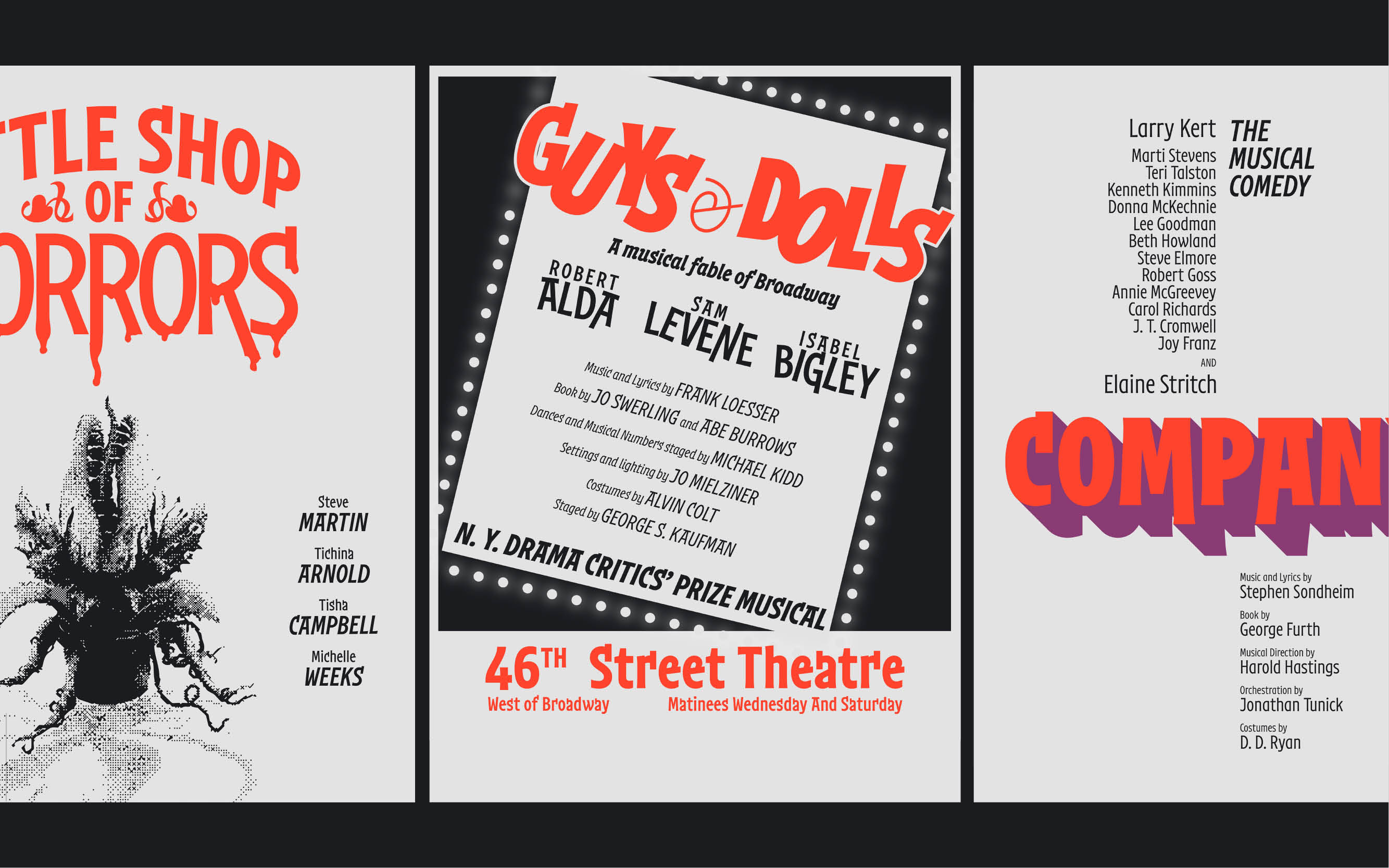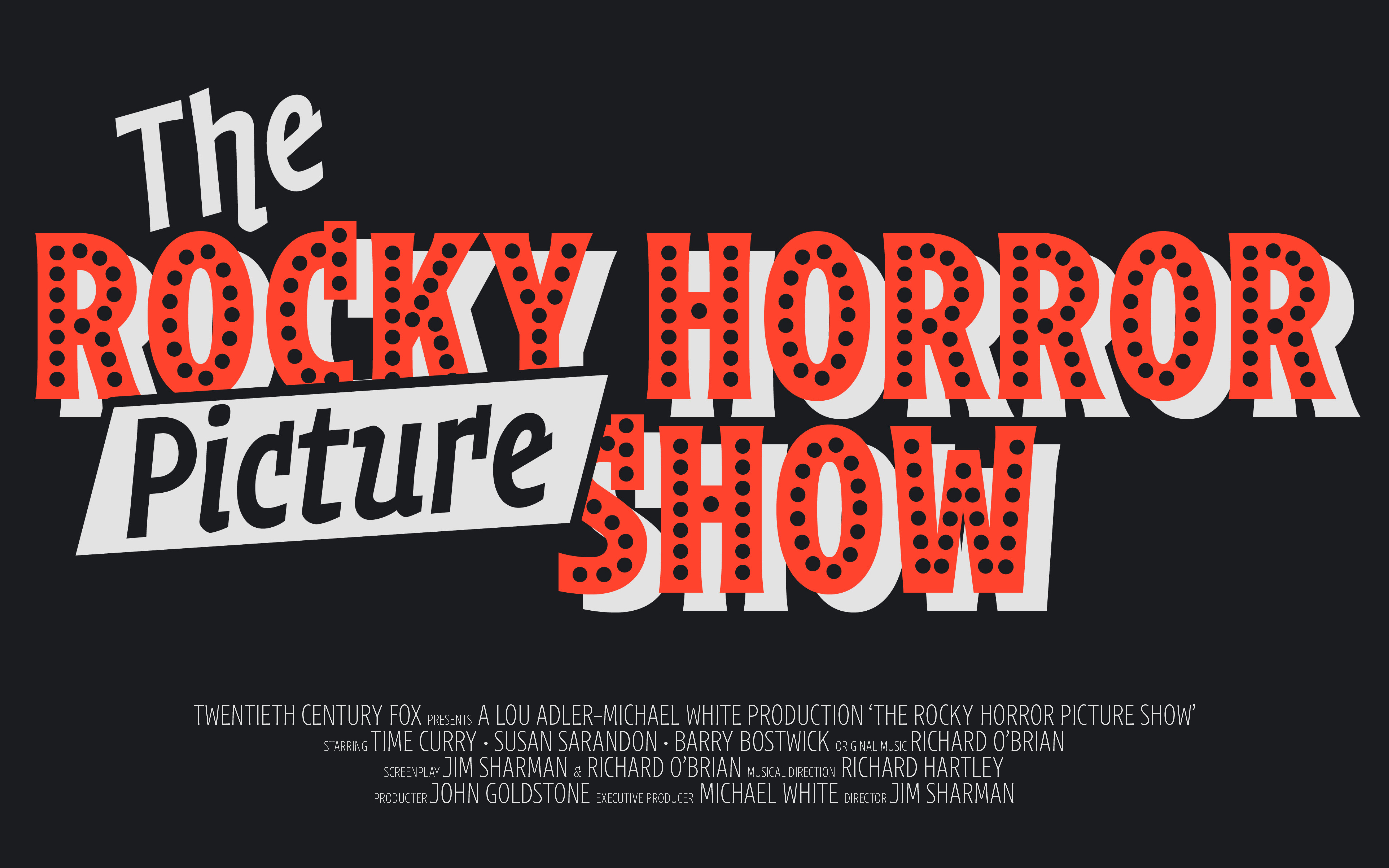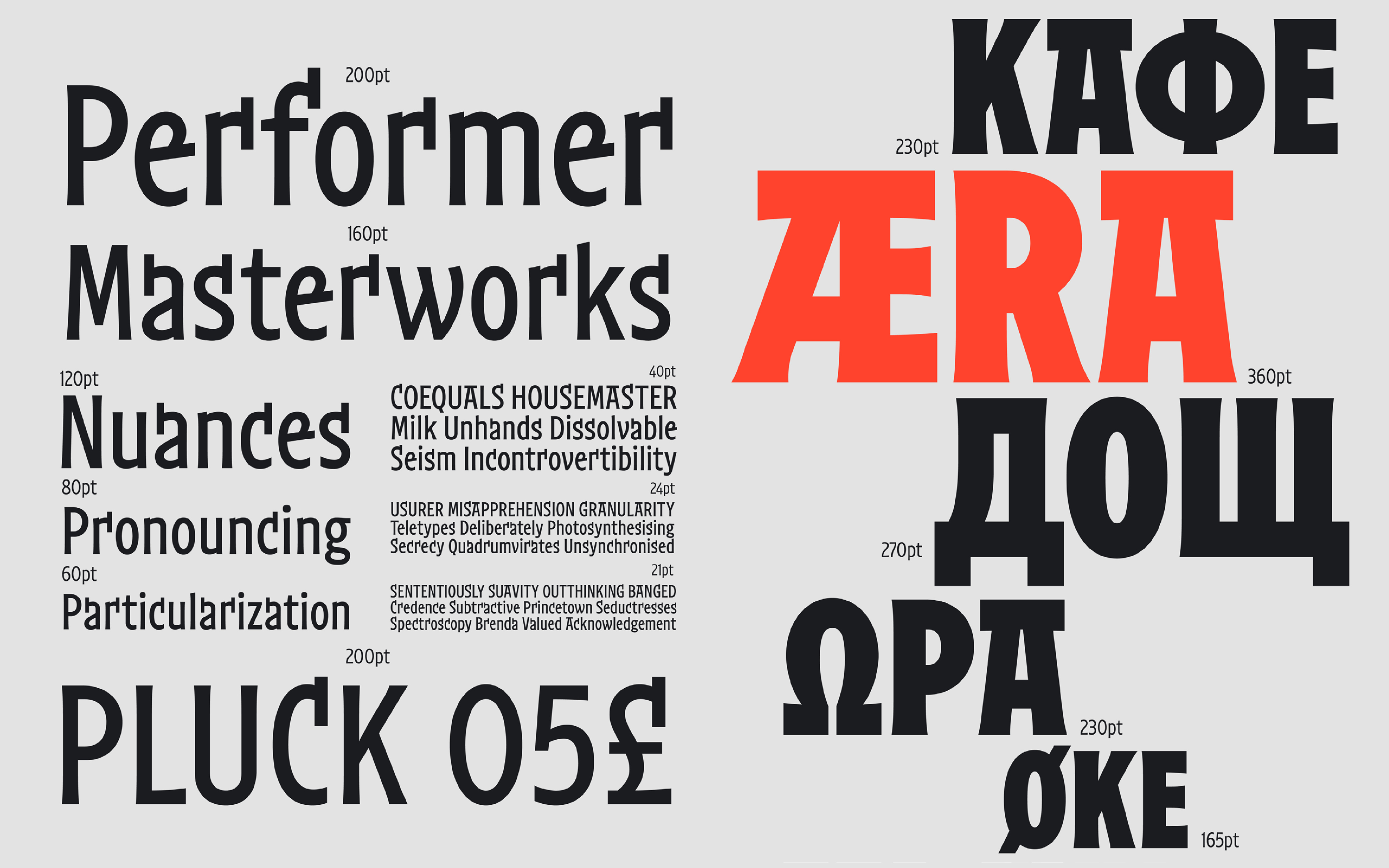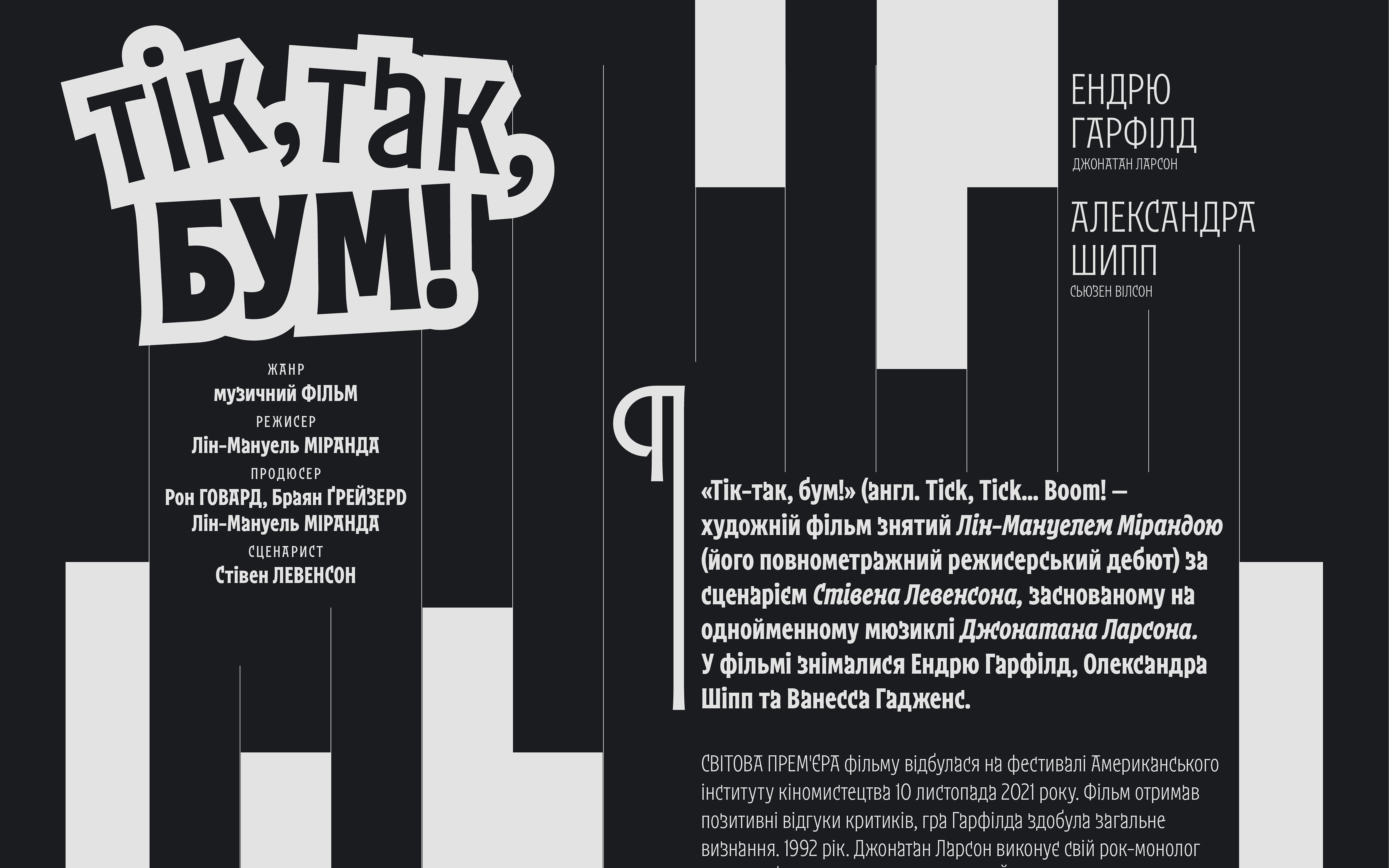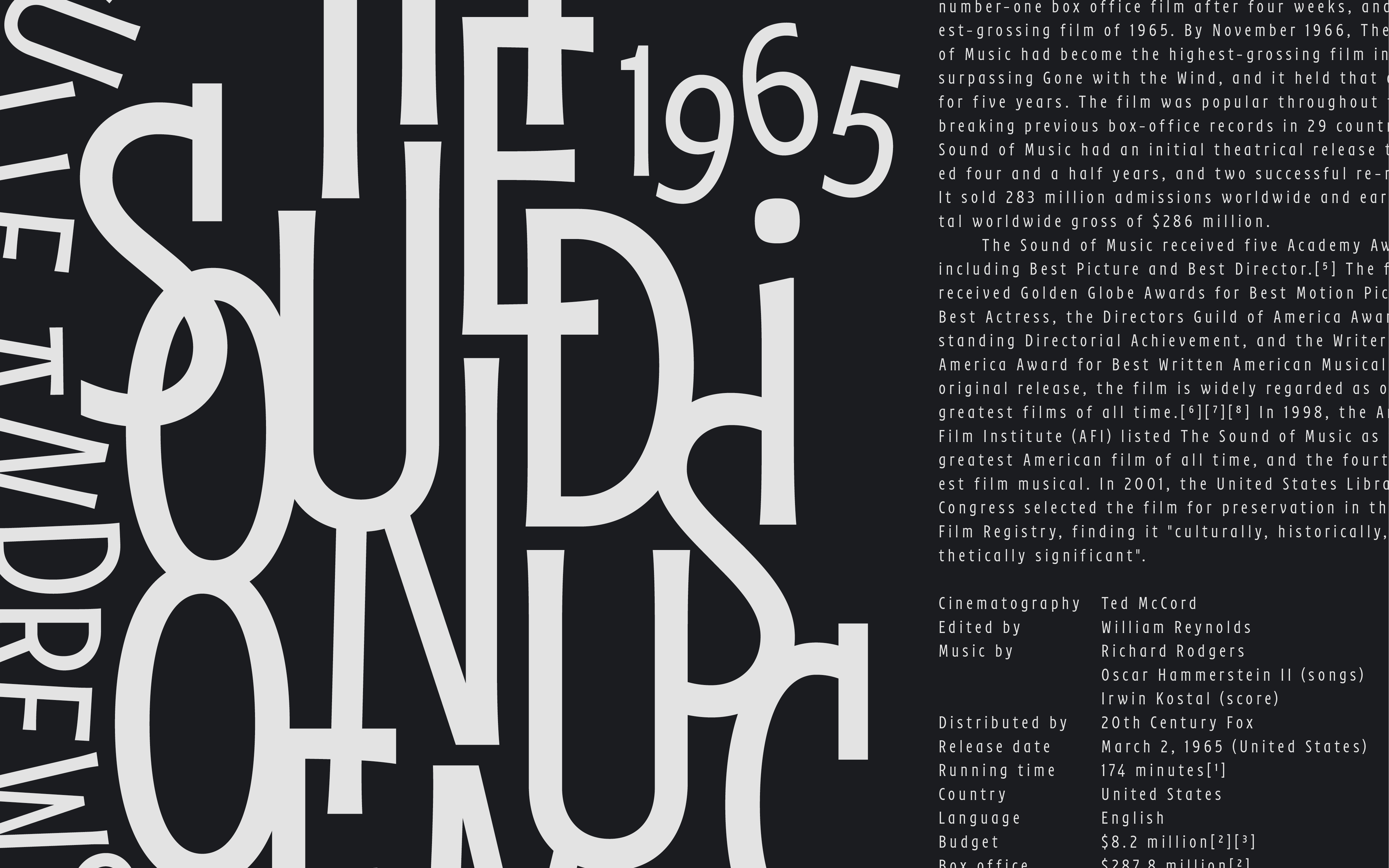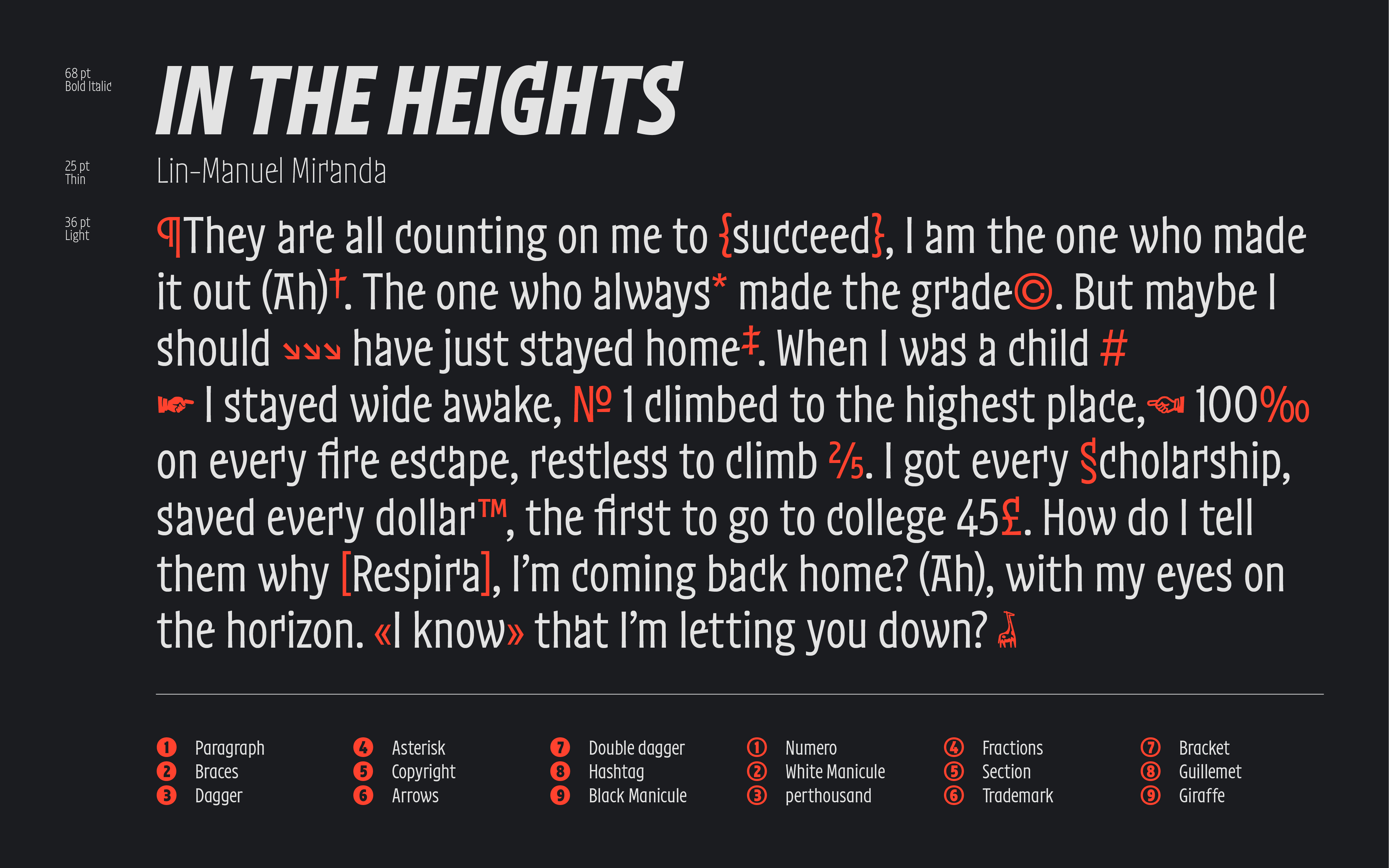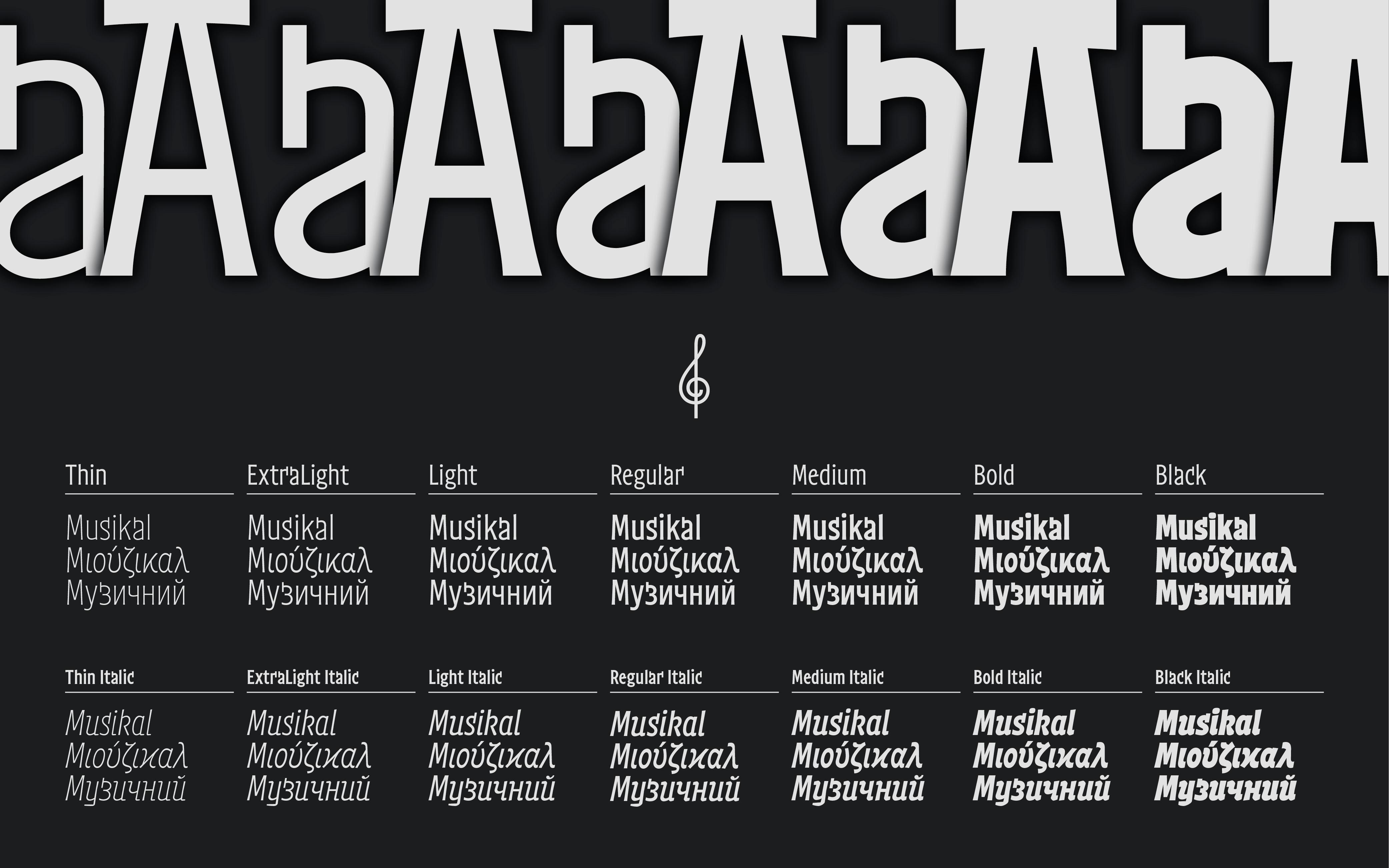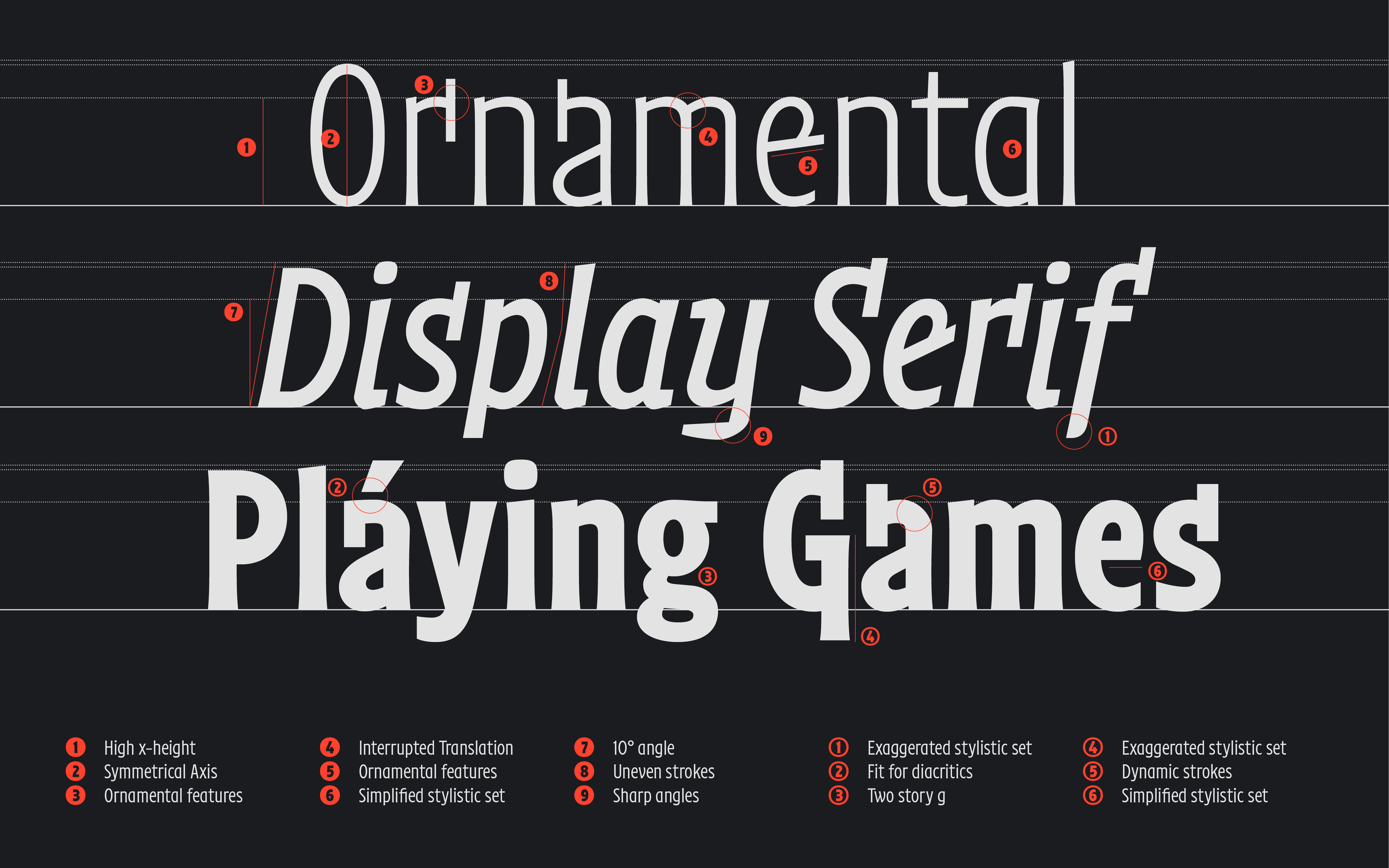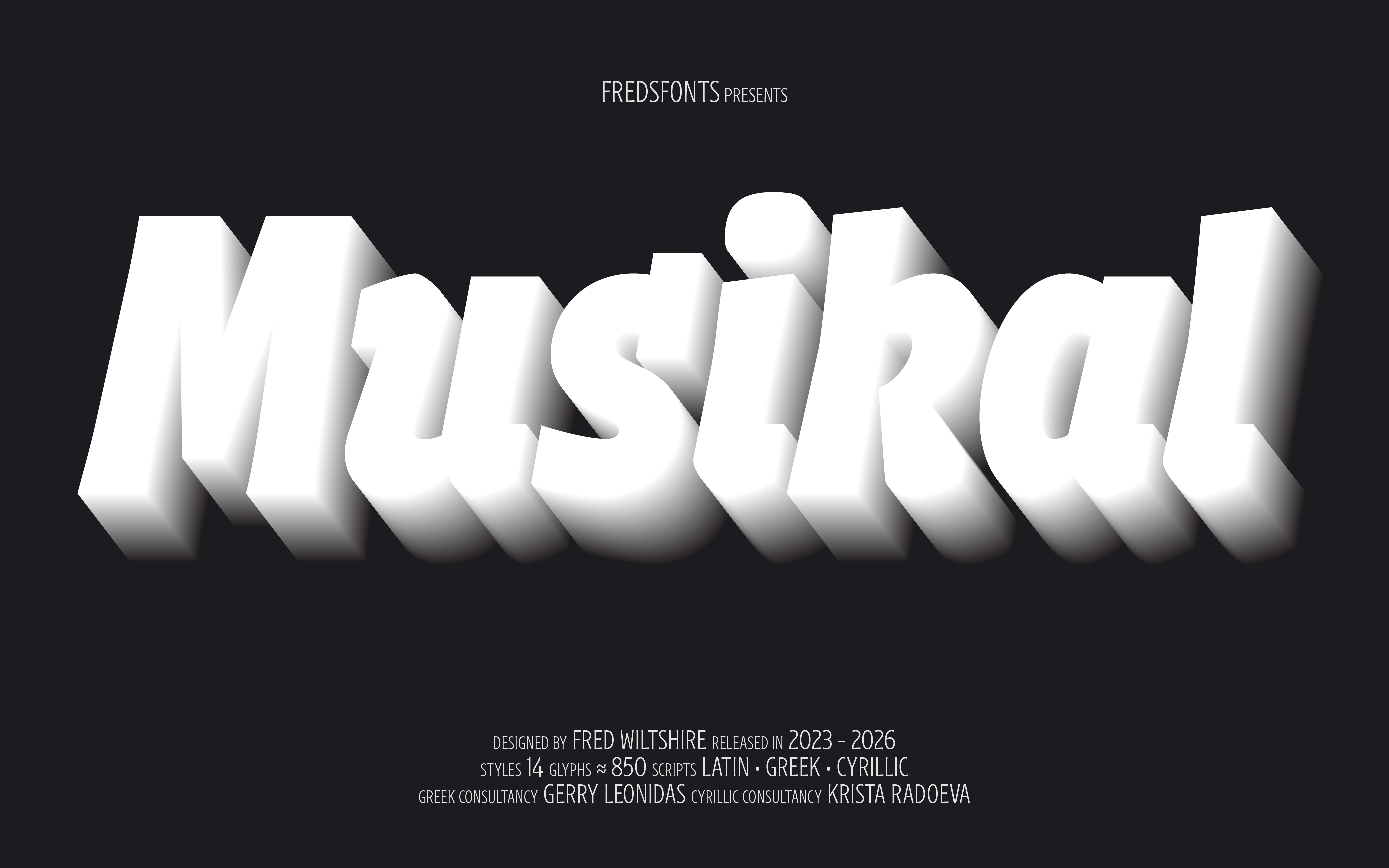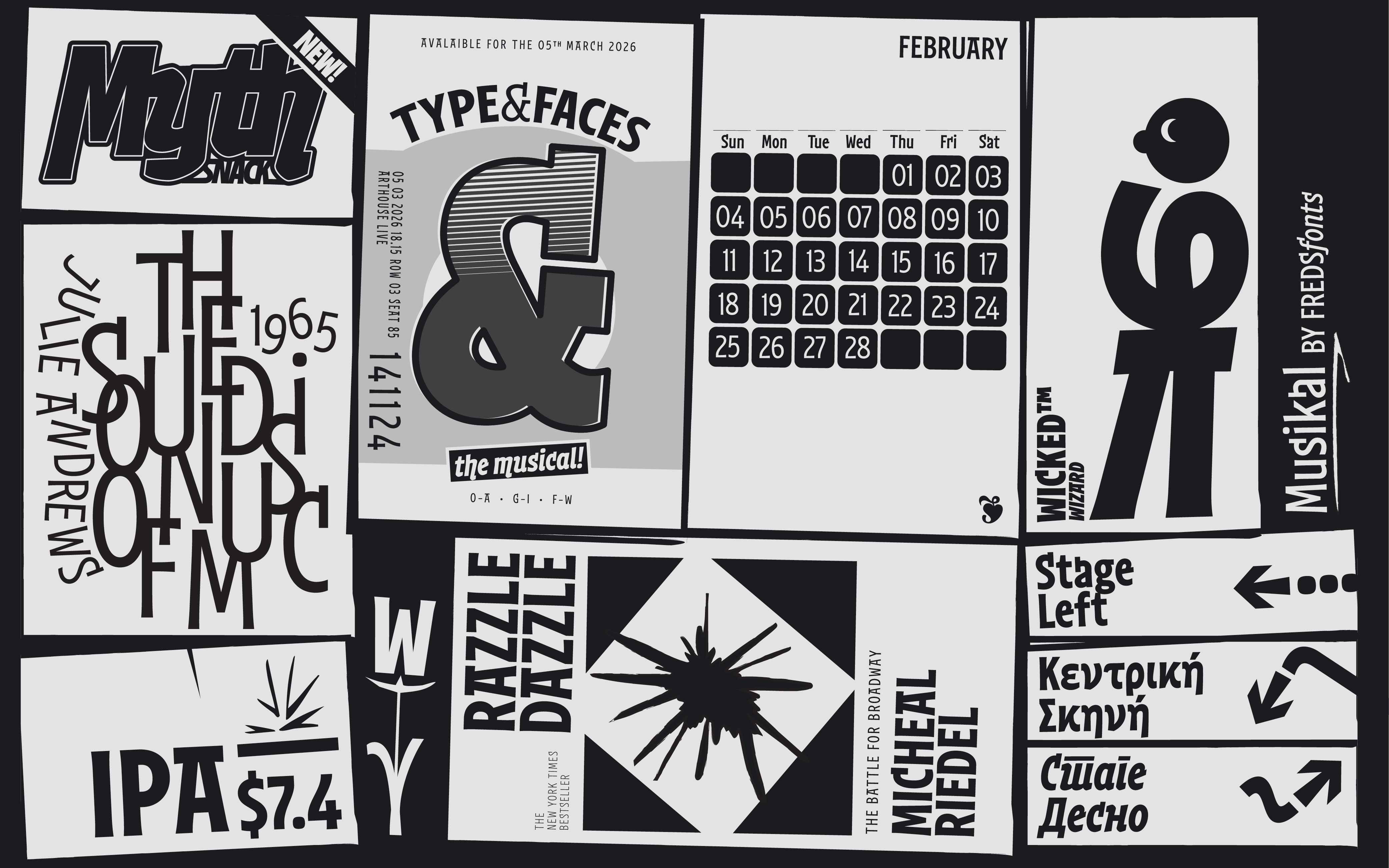
About the typeface
Drawing inspiration from Obelisk by Herman Ihlenburg (1880s), Musikal embodies the playful nature of its source material without imitating its design. The sharp, high contrasting serifs, geometric shapes and ornamental features of Obelisk were replaced with a playful and organic design. With slightly closer visual link to the stroke of a pen, Musikal’s small tapered serifs and simplified yet imposing ornamental strokes offer a contemporary and refreshing design, with glimpses of the past. Due to its condensed nature, its quirks and ornaments, Musikal is intended for display use. The prominent downstrokes found on characters such as the a, c and s will stand out in any design but still maintains a level of legibility.
Musikal is currently available in six weights (and six italics) with a large character set offering language support for extended Latin. It’s open type features offer the user a plethora of additional styles. The first Stylistic Set allows the user to set longer paragraphs of text with simplified versions of the A, C, G, S, a, c, e, g, r, s by removing the ornamental down strokes. If the user is looking for a more extravagant design, this can be found in Stylistic Sets 02 and 03 with extending strokes to certain letters. A selection of ligatures are also available, preventing any strokes from colliding, such as f_a.
Musikal also comes with additional styles of figures (non-lining, circled and fractions), ample punctuation, currency, maths and other symbols. As well as arrows, floral hearts, a manicule and a giraffe.